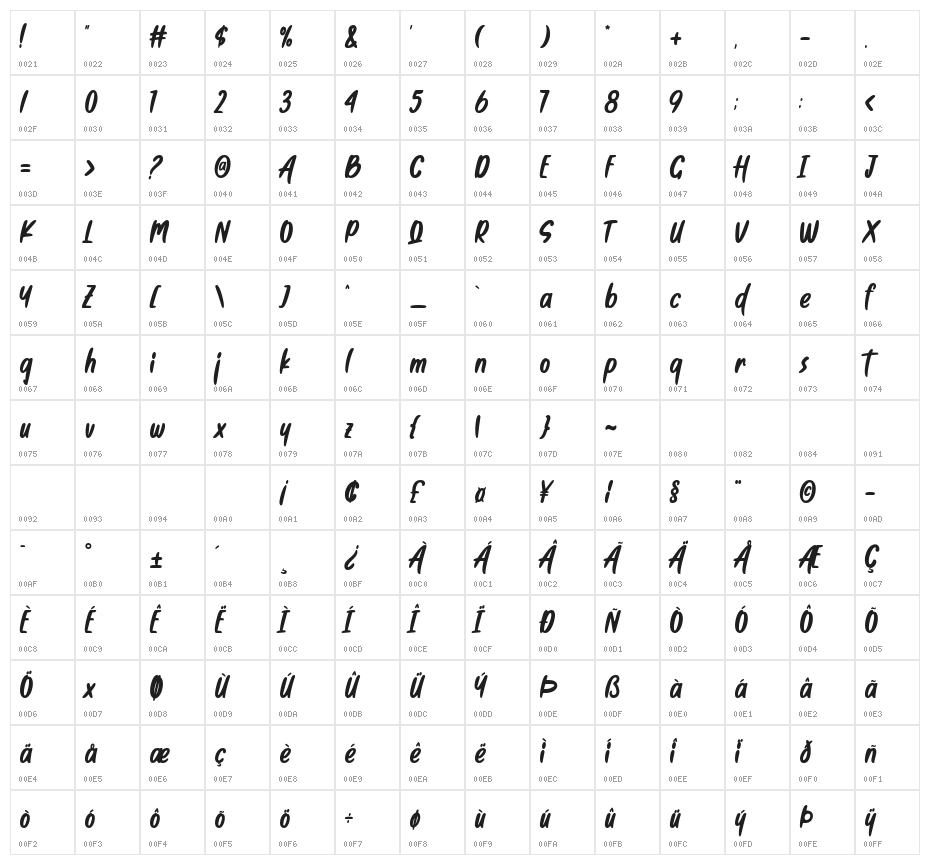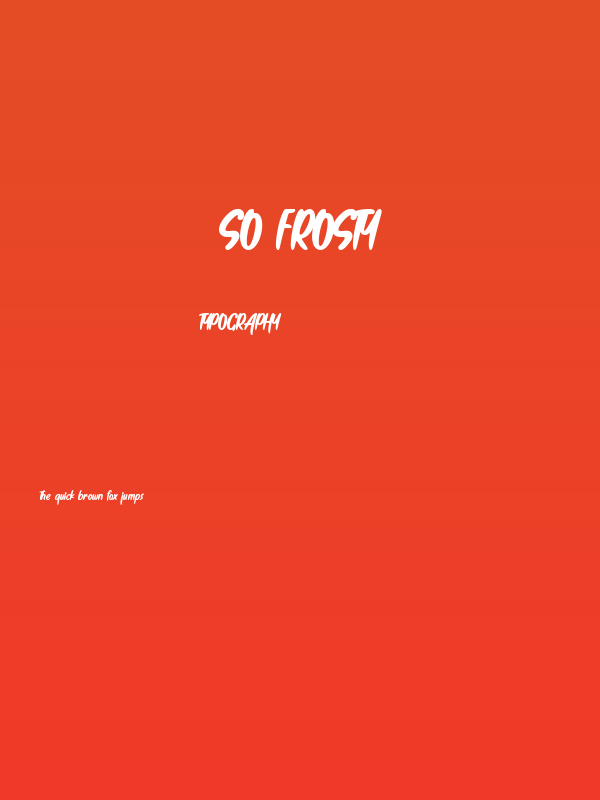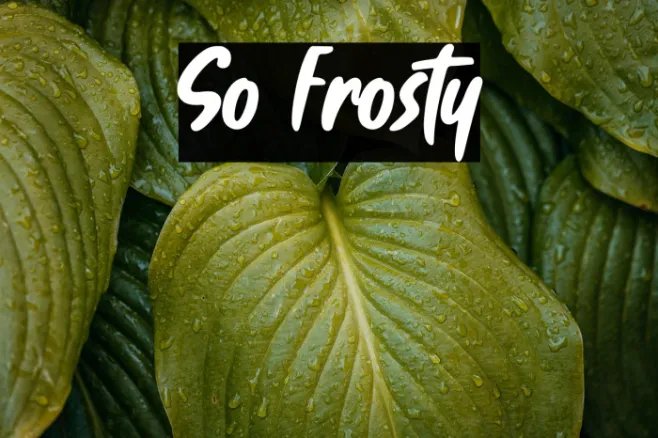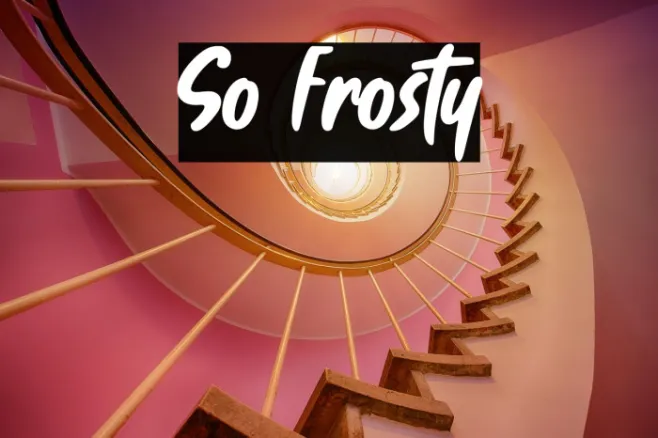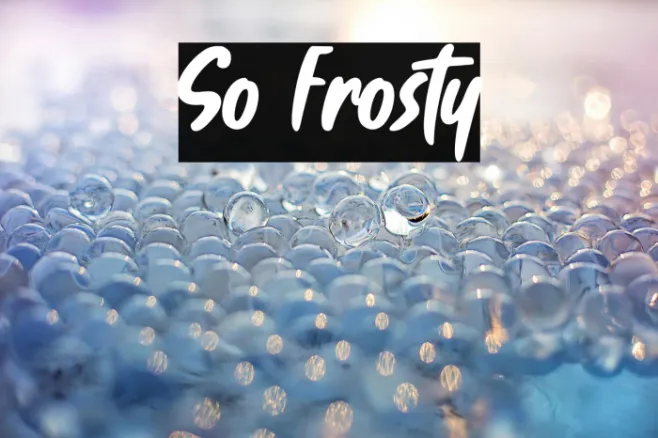
So Frosty Font
So Frosty Description
This font features a bold, energetic script style with a playful and dynamic appearance. The characters are slightly slanted, giving a sense of movement and fluidity. The strokes are thick and consistent, with rounded edges that add a friendly and approachable feel. The uppercase and lowercase letters are well-balanced, maintaining a cohesive look throughout. Numbers and special characters are designed to match the lively style of the alphabet, making it versatile for various design needs.